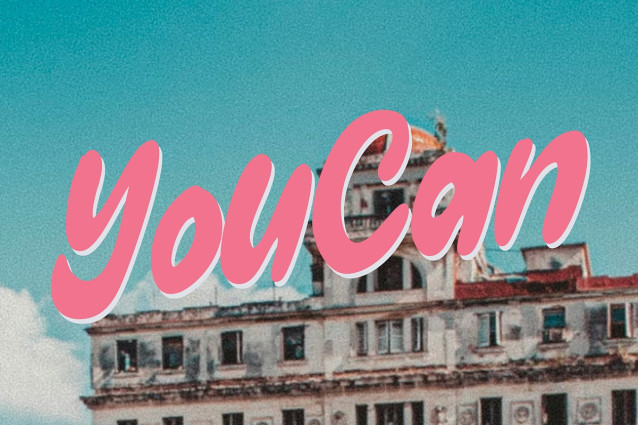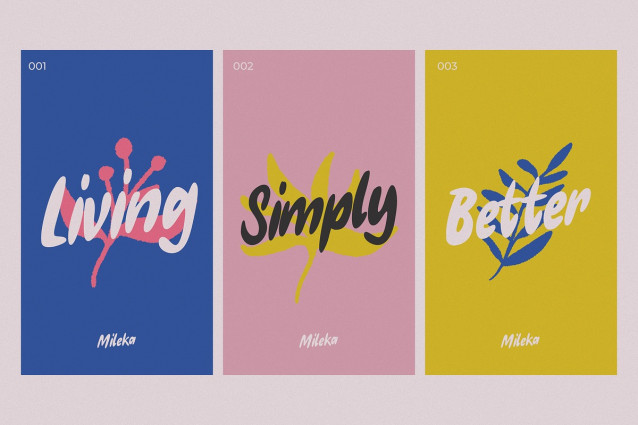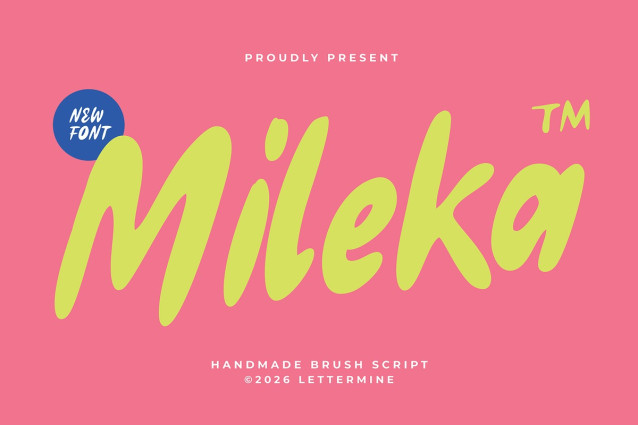
Mileka Brush Font
Mileka Brush Font is a handmade brush script font with a bold, smooth, and playful character. Featuring rounded strokes and a lively handwritten flow, this font brings a cheerful and friendly vibe to your designs. Its expressive brush style feels natural and energetic, making it perfect for fun, modern, and creative projects.
Ideal for logos, branding, packaging, posters, social media graphics, quotes, apparel designs, invitations, and creative displays, Mileka helps your visuals feel more vibrant and engaging.